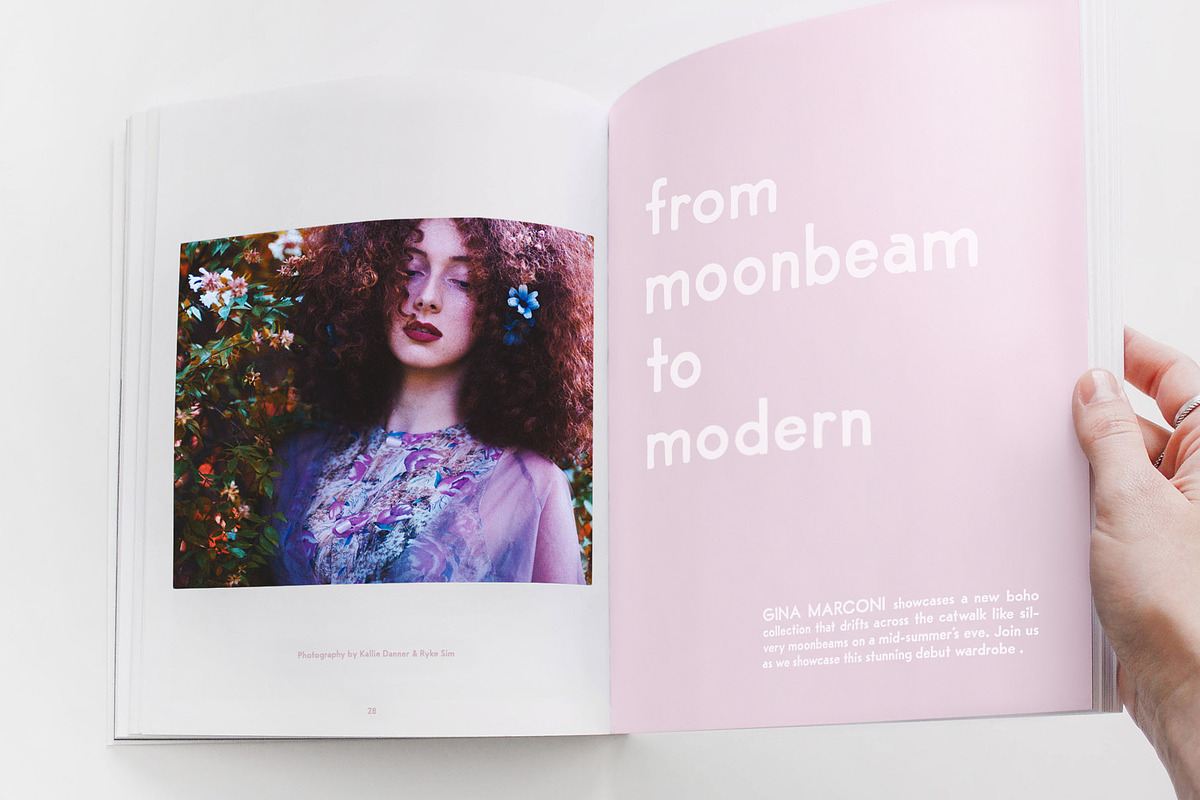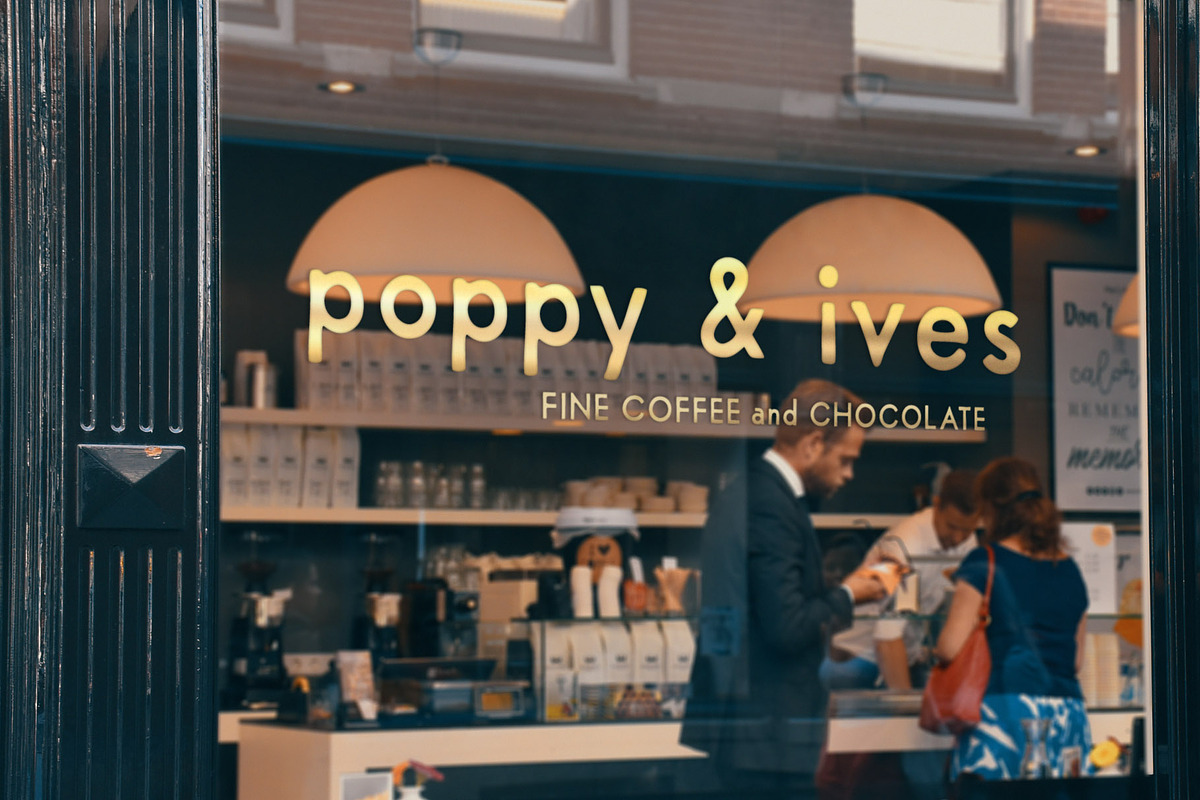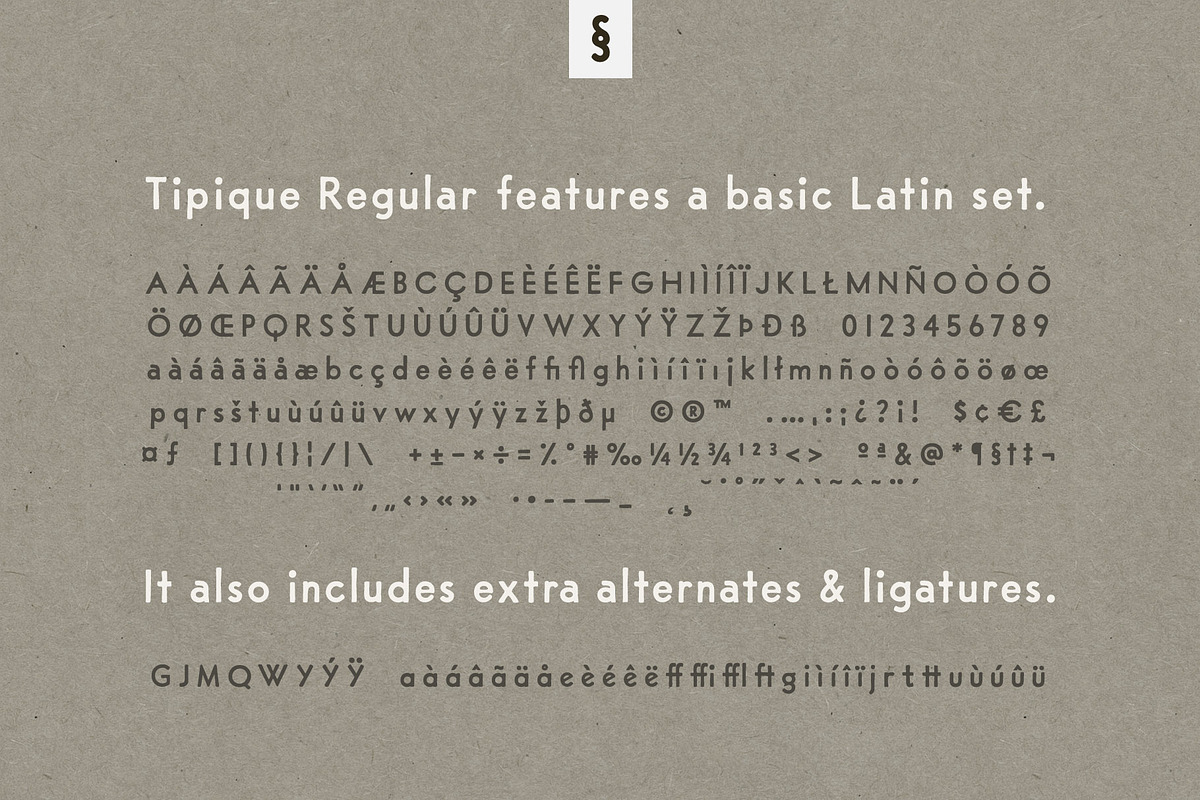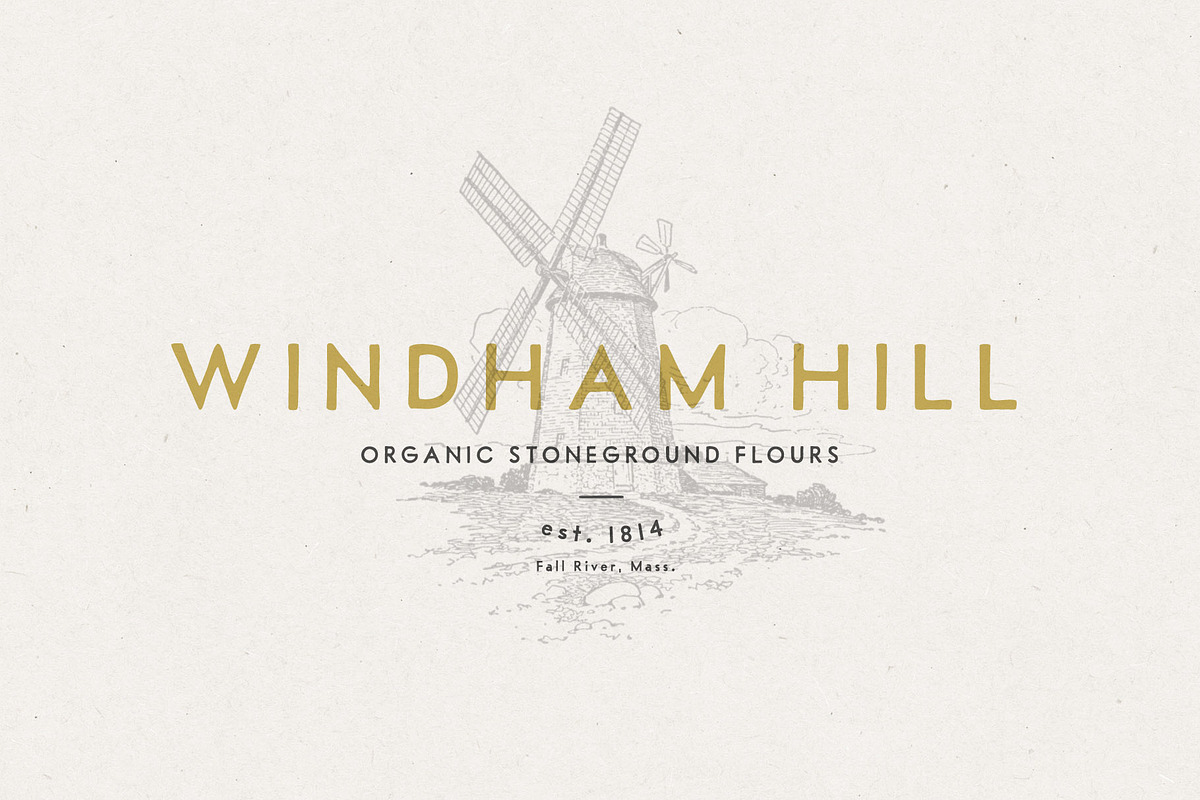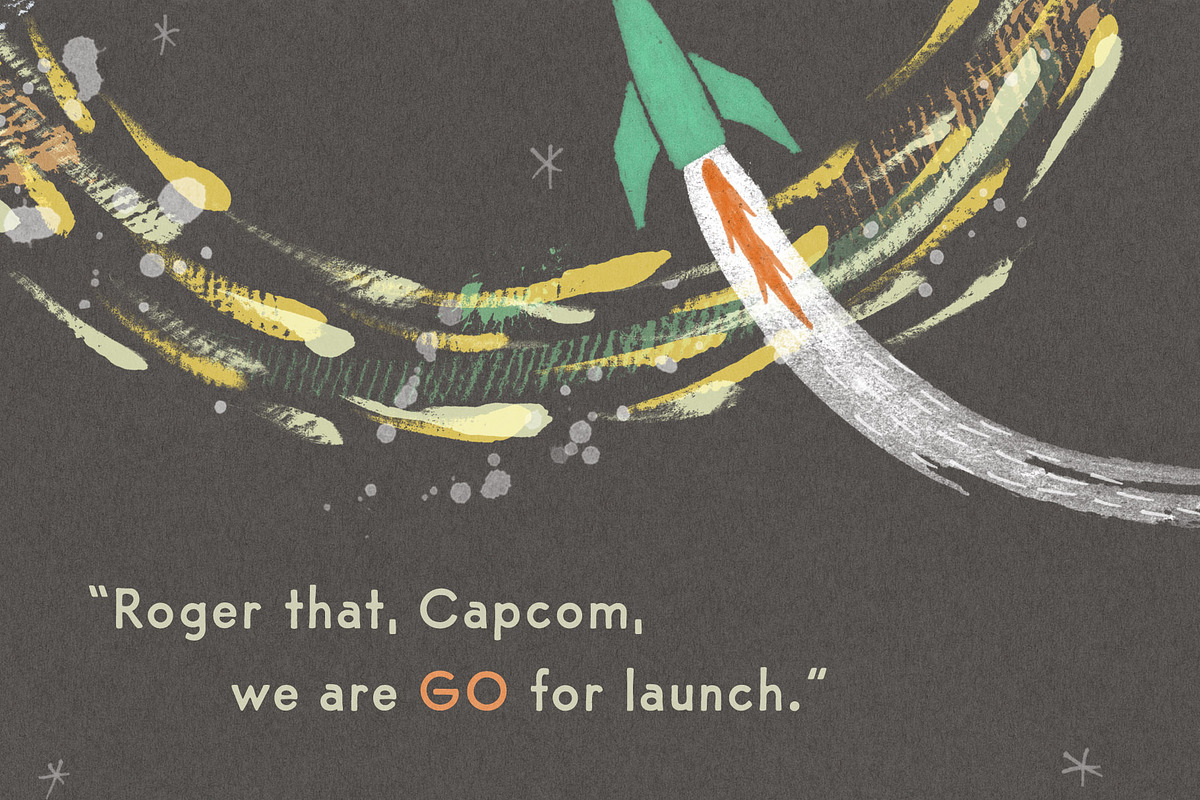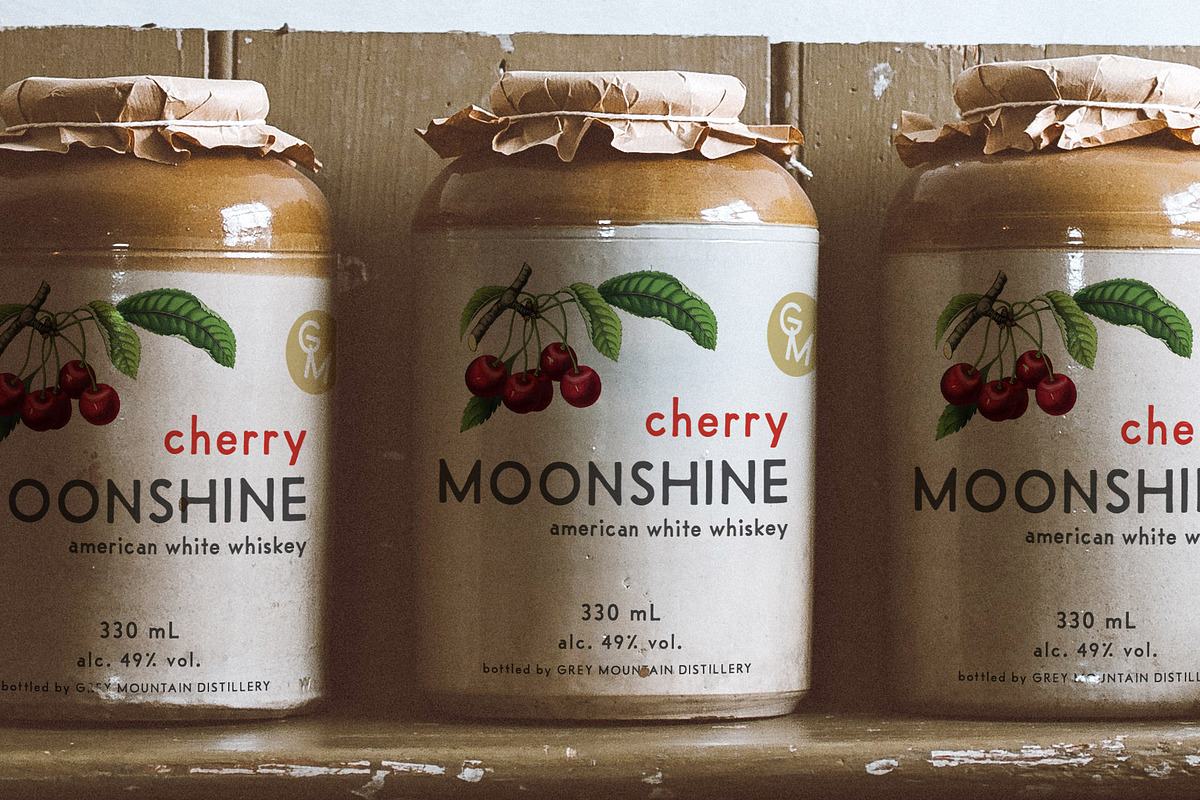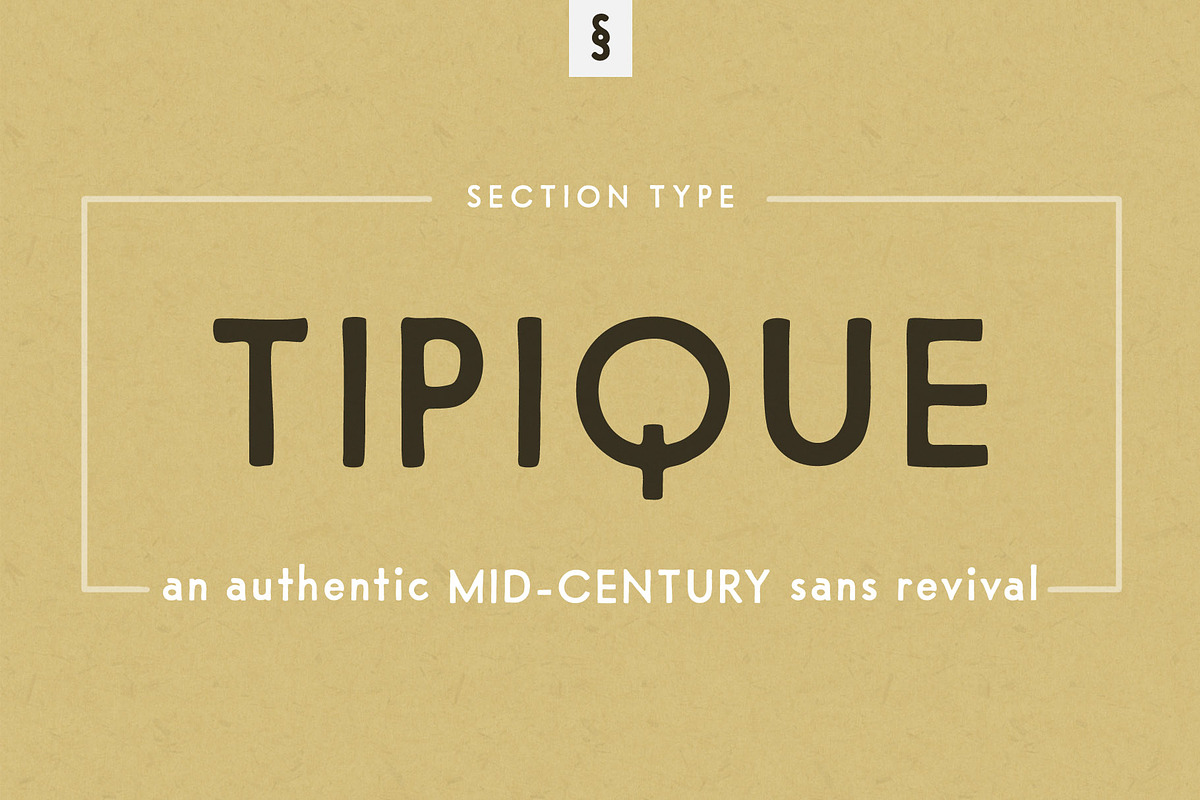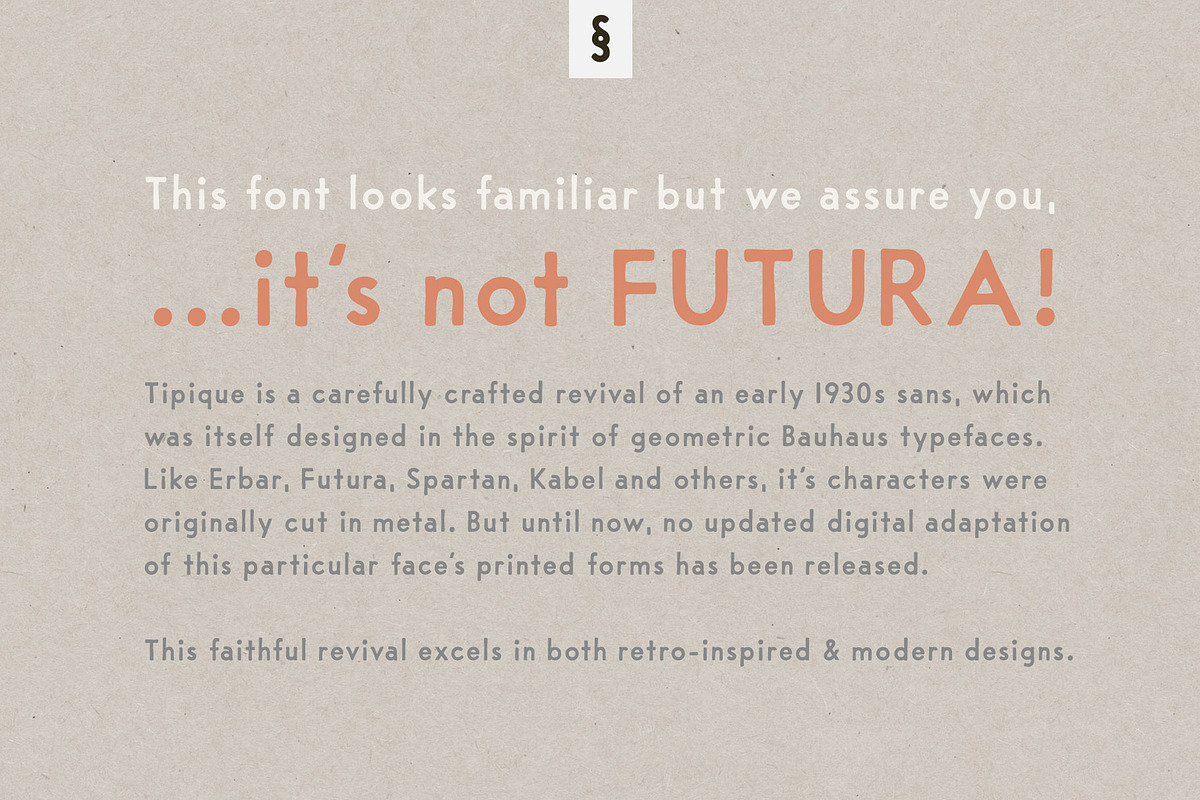
Tipique | Mid-Century Font Revival
This font looks familiar but it's not Futura! Tipique Regular is a carefully crafted revival of an early 1930s sans which was itself designed in the spirit of geometric Bauhaus typefaces. Like it's cousins Erbar, Futura, Spartan, Kabel and others, Tipique's original characters were originally cut in metal. But until now, no updated digital adaptation of this particular face's printed forms has been released.
Tipique has been waiting for you for 90 years!
This faithful revival excels in both retro-inspired & modern designs. Give your brand a fresh feel by using Tipique in logos, business cards and letterhead. Design inspired product & food packaging, restaurant menus and more! Experiment with select alternate cuts of G, J, M, Q, W, Y, a, e, g, i, j, r t and u (and appropriate diacritics). The included ff, ffi, ffl, ft and tt ligatures assist in typesetting longer blocks of text.
Alternate cuts for select uppercase and lowercase letters (located in stylistic sets)
Select typesetting ligatures (located in stylistic sets)
16 letter-by-letter Opentype stylistic sets, so you can enable and disable alternate cuts with maximum control